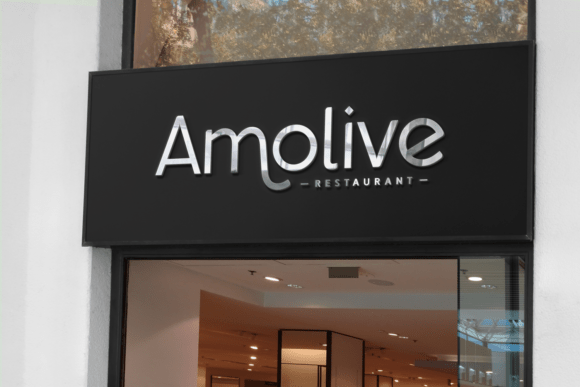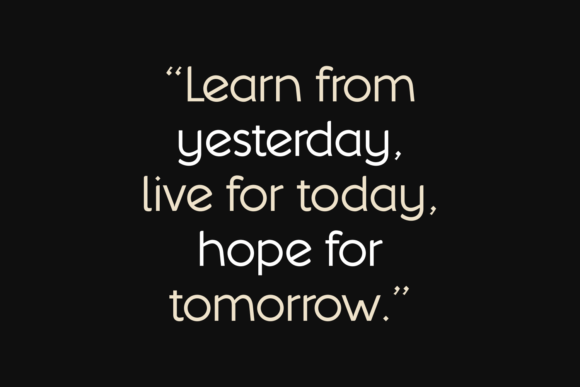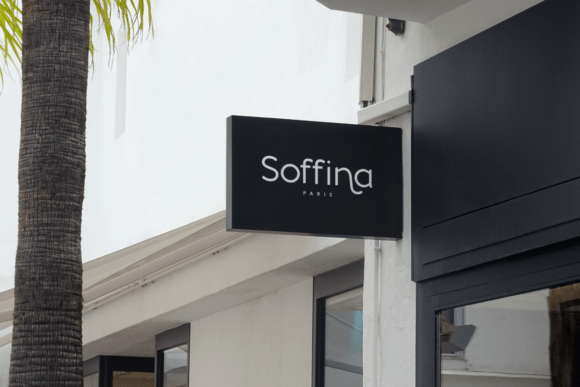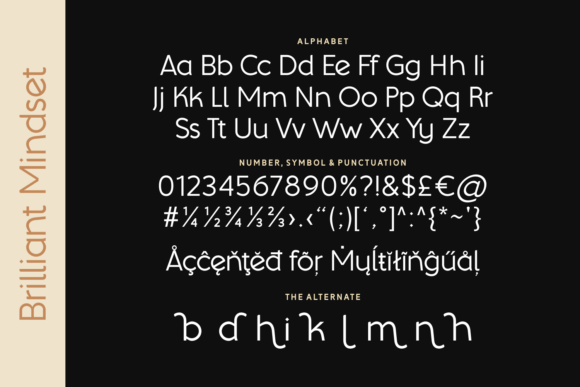
Unlock Your Creativity with Brilliant Mindset Font
In the world of typography, fonts play a crucial role in conveying the tone and personality of a brand or message. For designers and crafters looking to make a statement, the Brilliant Mindset font is an excellent choice. This creative sans serif font seamlessly blends modern structure with artistic flourishes, making it perfect for those who want to add a touch of individuality and intelligence to their work.
The Unique Features of Brilliant Mindset Font
So, what sets Brilliant Mindset apart from other fonts? Here are a few key features that make it stand out:
- Quirky Swashes: The font boasts quirky swashes that add a playful touch to any design. These swashes can be used to create eye-catching logos, social posts, and motivational campaigns that demand attention.
- Unexpected Letter Twists: The letters in Brilliant Mindset have unexpected twists that give the font its unique character. This feature adds a sense of whimsy and creativity to any text, making it perfect for designers who want to push the boundaries of conventional typography.
- Modern Structure: Despite its artistic flourishes, Brilliant Mindset has a modern structure that ensures it remains clean and legible. This makes it an excellent choice for body text, headings, and titles.
Perfect for Creators Who Want a Minimalist Font with a Bold Creative Spirit
Brilliant Mindset is ideal for creators who want a font that is both minimalist and bold. Its clean lines and simple structure make it perfect for designs that require a subtle yet impactful touch. At the same time, its quirky swashes and letter twists add a creative flair that sets it apart from more traditional fonts.
Use Cases for Brilliant Mindset Font
So, how can you use Brilliant Mindset in your designs? Here are a few ideas to get you started:
- Logos: Use Brilliant Mindset to create a unique and memorable logo that reflects your brand’s personality.
- Quotes: Add a touch of elegance and sophistication to your quotes with Brilliant Mindset’s clean lines and artistic flourishes.
- Social Posts: Make your social posts stand out with Brilliant Mindset’s quirky swashes and unexpected letter twists.
- Motivational Campaigns: Use Brilliant Mindset to create inspiring and motivational campaigns that motivate and engage your audience.
Why Choose Brilliant Mindset Font?
With so many fonts available, why choose Brilliant Mindset? Here are a few reasons why this font stands out:
- Unique Character: Brilliant Mindset has a unique character that sets it apart from other fonts. Its quirky swashes and unexpected letter twists make it perfect for designers who want to add a touch of personality to their work.
- Versatility: Brilliant Mindset is a versatile font that can be used in a variety of contexts, from logos and quotes to social posts and motivational campaigns.
- Easy to Read: Despite its artistic flourishes, Brilliant Mindset remains easy to read, making it perfect for body text and headings.
In conclusion, Brilliant Mindset is an excellent choice for designers and crafters looking to add a touch of creativity and individuality to their work. Its unique features, versatility, and ease of use make it perfect for a wide range of design projects. Whether you’re creating a logo, quote, social post, or motivational campaign, Brilliant Mindset is sure to make a statement.